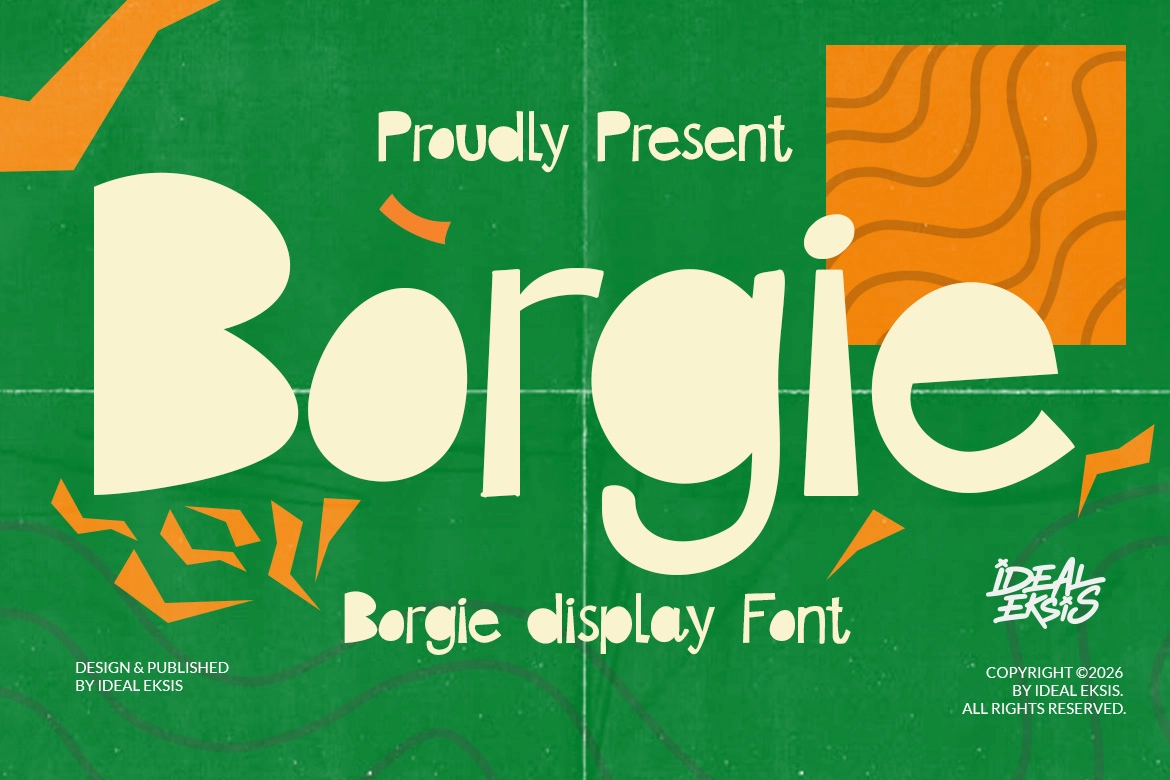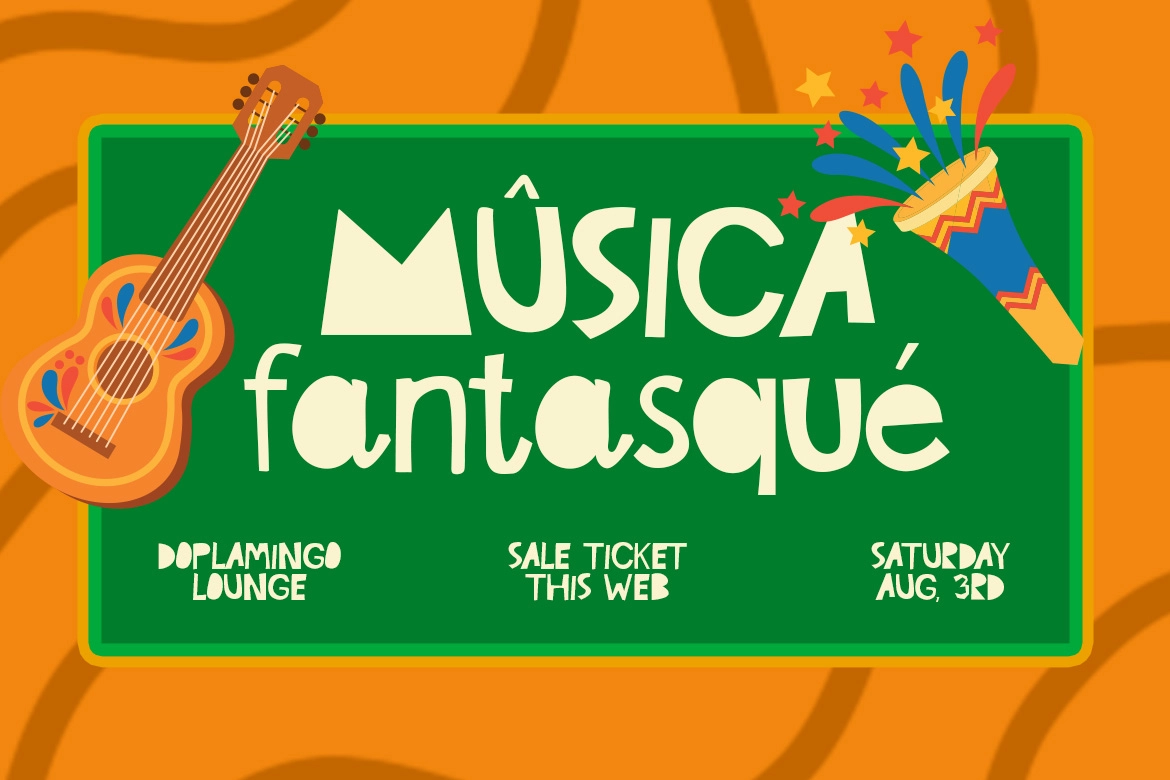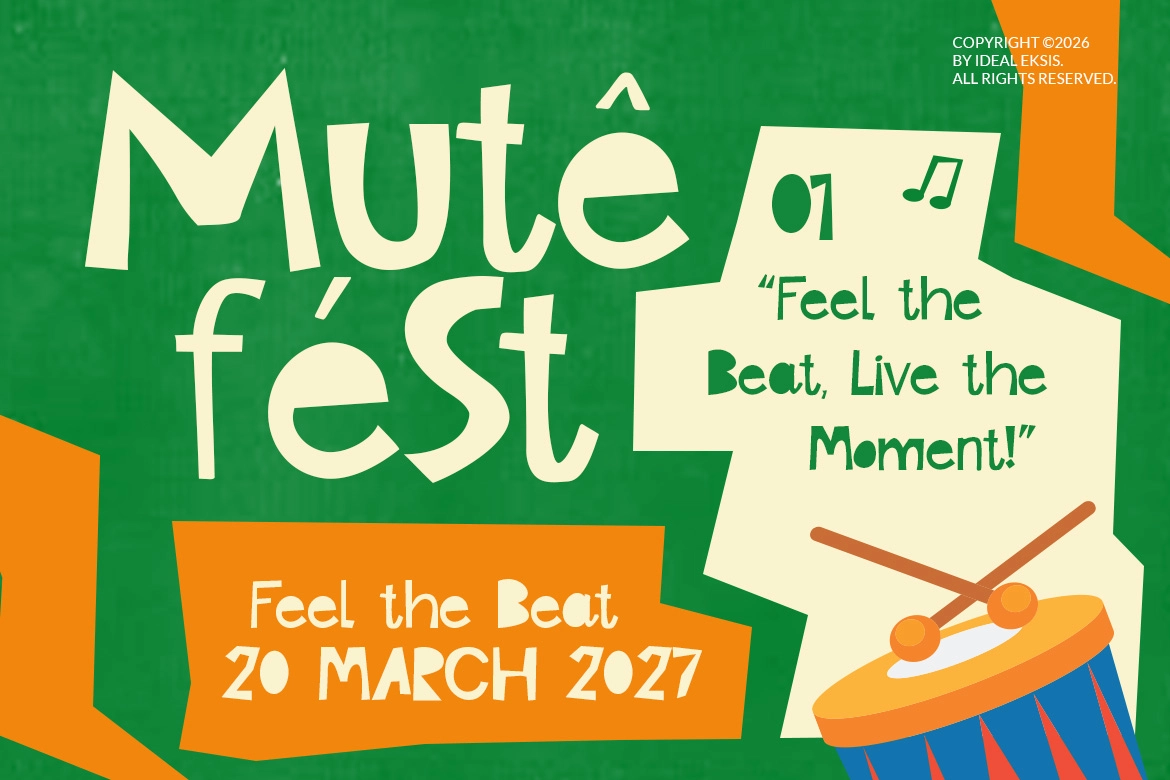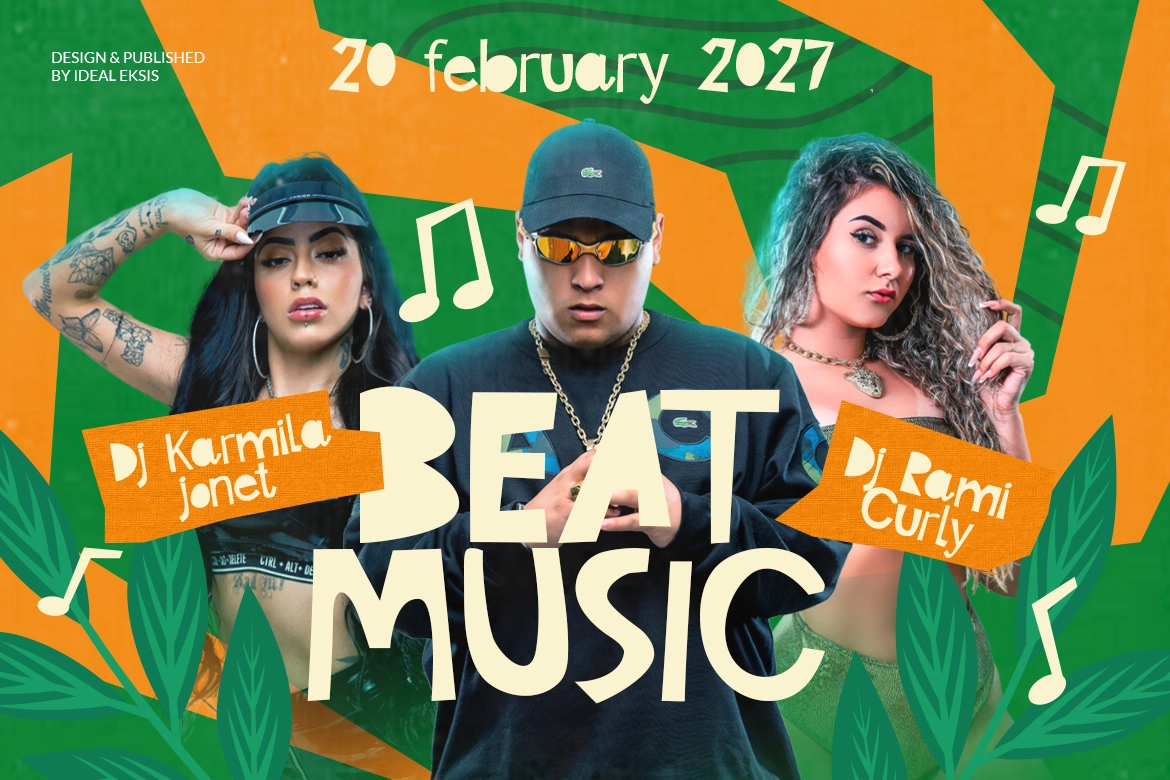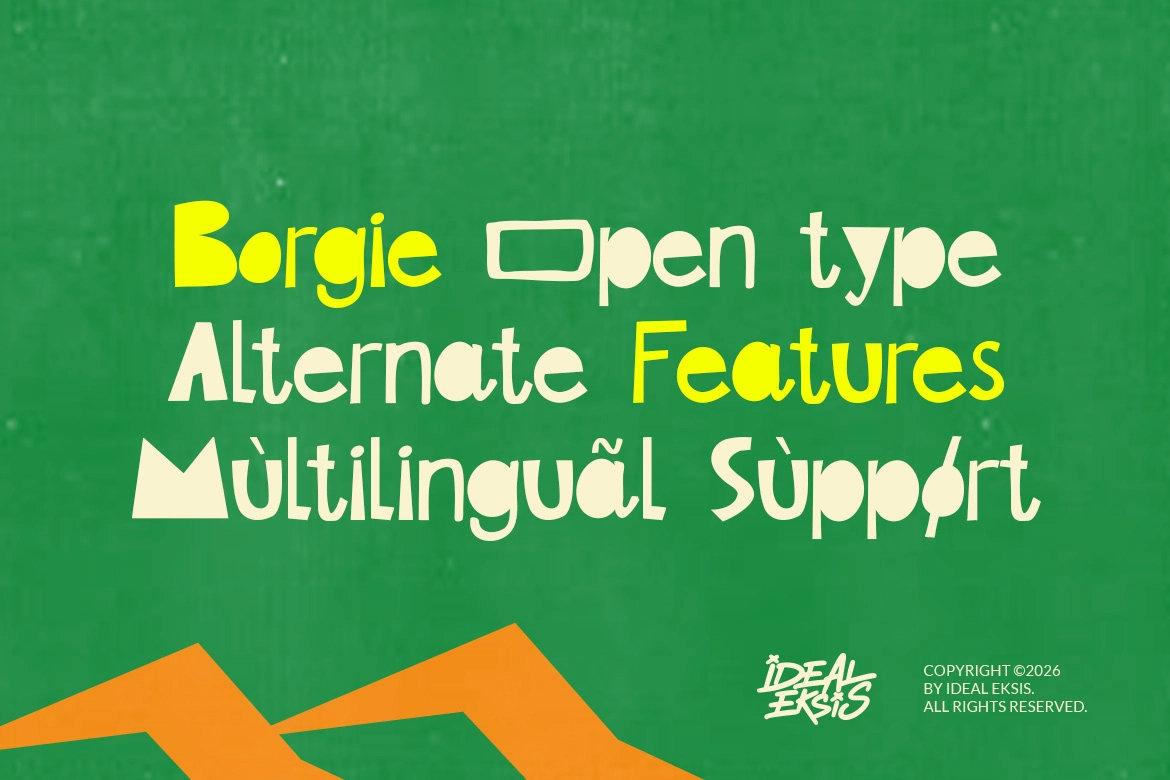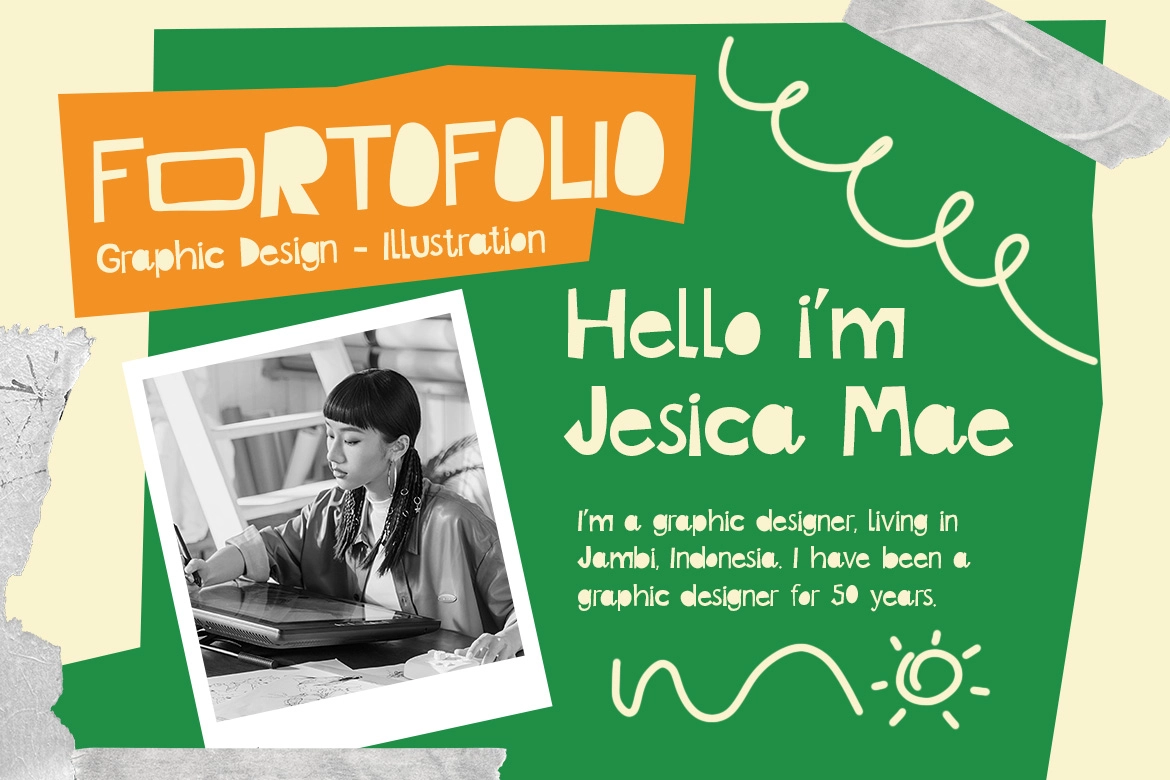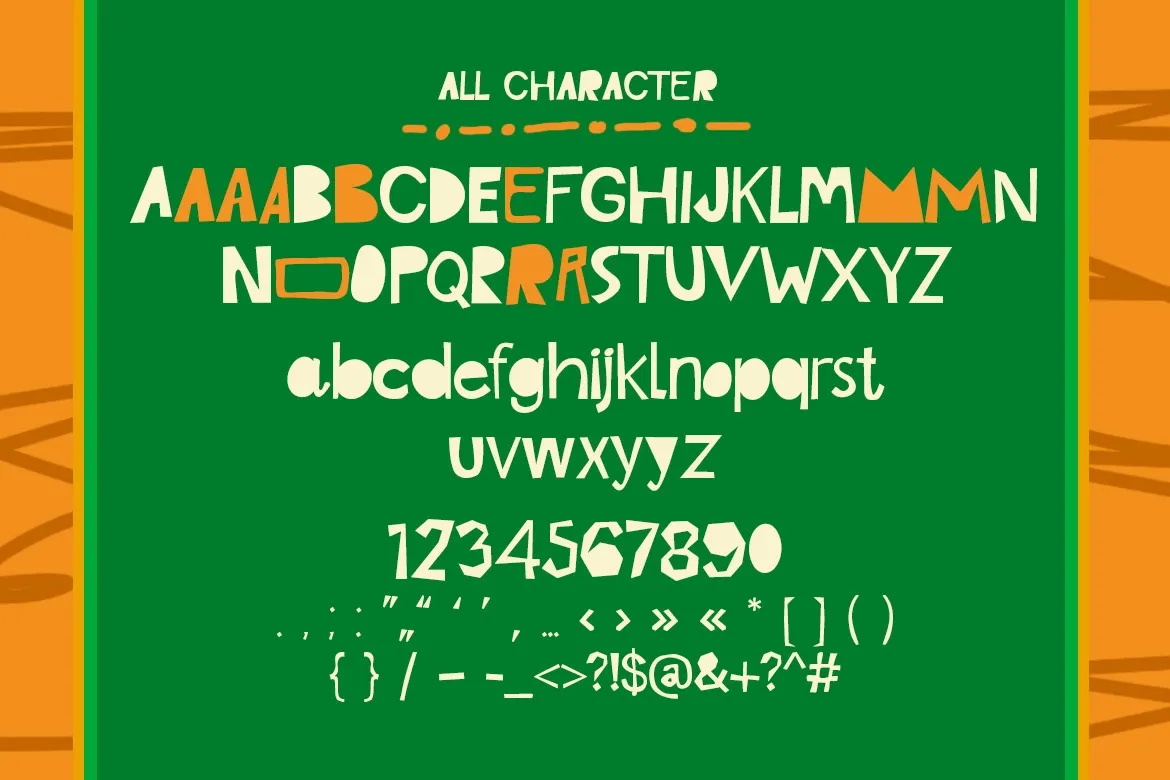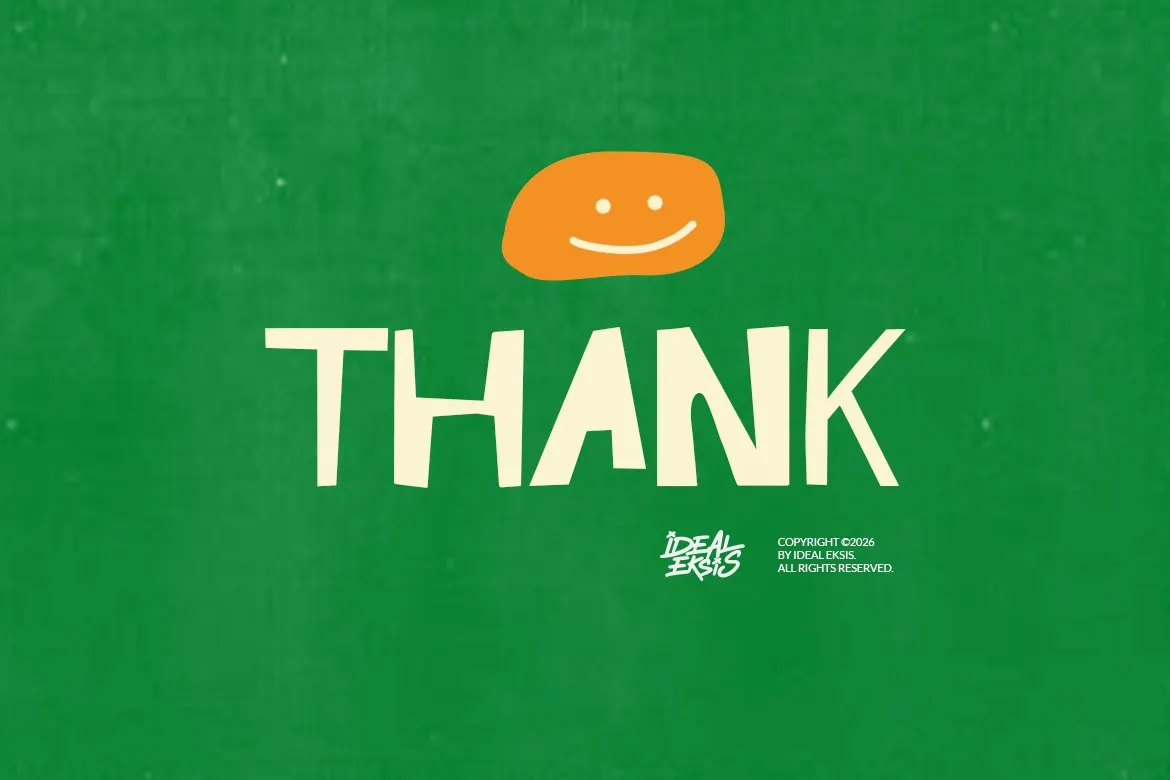
Borgie - Quirky Typeface
Borgie is a playful hand-drawn display font with quirky, bouncy letterforms and a cheerful retro feel. It’s made for bold headlines and short phrases that need personality—great for posters, festival flyers, kids projects, branding, packaging, stickers, and social media graphics. Use it when you want friendly, fun typography with an imperfect, lively rhythm that instantly feels handmade and energetic.
- Uppercase (All Caps)
- Alternate
- Punctuation